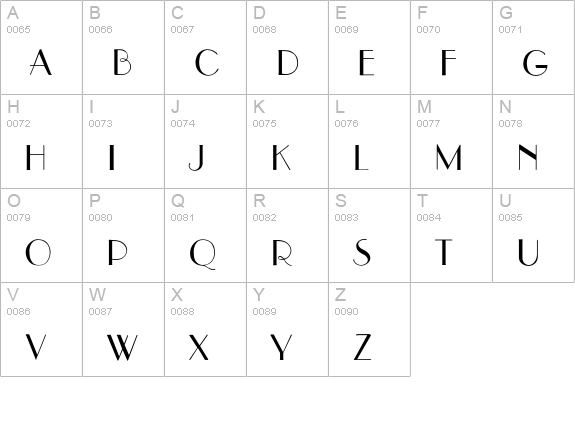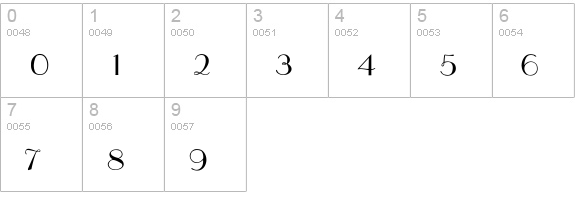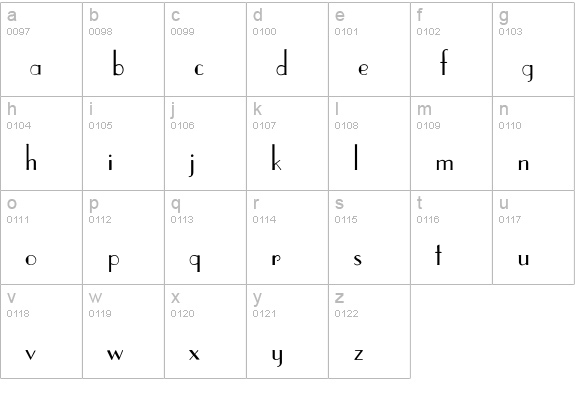
Parisian-Thin Font Details
Introducing the captivating Parisian-Thin font, a true epitome of elegance and sophistication. With its delicate strokes and slender letterforms, this font effortlessly transports you to the romantic streets of Paris, where beauty and style intertwine. Parisian-Thin is a font that whispers grace and refinement, making it the perfect choice for any design project that requires a touch of class. Whether you are creating wedding invitations, branding materials, or editorial layouts, this font will add a timeless charm that is sure to leave a lasting impression. Its intricate details and graceful curves make Parisian-Thin a standout choice among other fonts. Each letter is meticulously crafted, showcasing the meticulous attention to detail that went into its creation. The thin lines and elongated shapes create an ethereal quality, exuding a sense of lightness and sophistication. But what makes Parisian-Thin truly remarkable is that it is not only visually stunning, but also freely available to download at FontsMarket.com. Yes, you read that right! You can explore the elegance of this font without any cost, making it accessible to designers of all levels. Download Parisian-Thin now and unlock the potential to create breathtaking designs that evoke the timeless beauty of Paris. Whether you are a professional designer or a creative enthusiast, this font is the perfect tool to elevate your creations to new heights. So why wait? Embrace the allure of Parisian-Thin and let your designs radiate sophistication and grace.